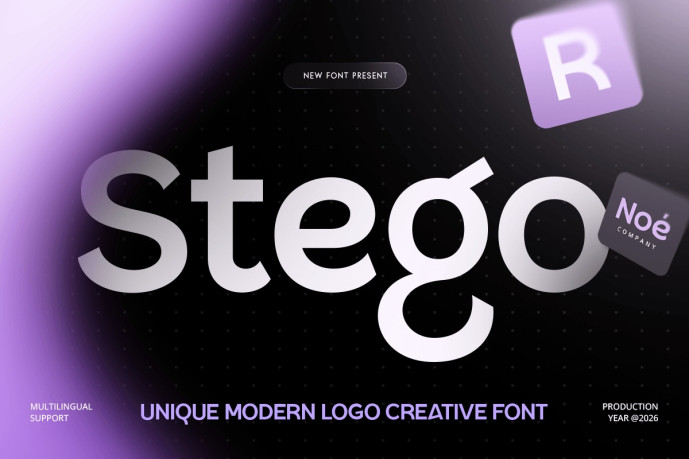
Stego – Modern Creative Font
Stego – Unique Modern Logo Creative Font is a modern creative logo font designed for distinctive branding, professional logo design, startup identities, and contemporary visual communication. Inspired by innovative typography and modern brand aesthetics, Stego delivers a bold and recognizable visual style that helps businesses and creative projects stand out.
Featuring unique letterforms, refined proportions, and a clean contemporary structure, Stego creates memorable logos while maintaining excellent readability and versatility. Its balanced design is ideal for building brand identities that feel modern, original, and professional across both digital and print media.
Whether you’re creating a startup logo, developing a creative brand identity, designing a premium logotype, or producing marketing materials, Stego provides the modern typography needed to communicate originality and confidence.
Stego Font Features
Character Set: Uppercase, lowercase, numbers, symbols, and punctuation
Unique modern letterforms optimized for logo design and creative branding